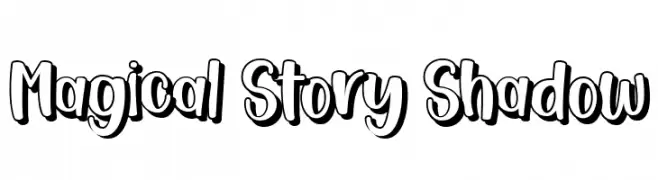
A bold, playful hand-drawn font with rounded edges and a whimsical style.
A playful, hand-drawn font with rounded edges and a whimsical style.
A playful, outlined font with a hand-drawn, whimsical style.
A playful and bold font with rounded, whimsical letterforms.
A playful, bold font with a hand-drawn style and shadow effect.
A whimsical, handwritten font with playful, irregular characters.